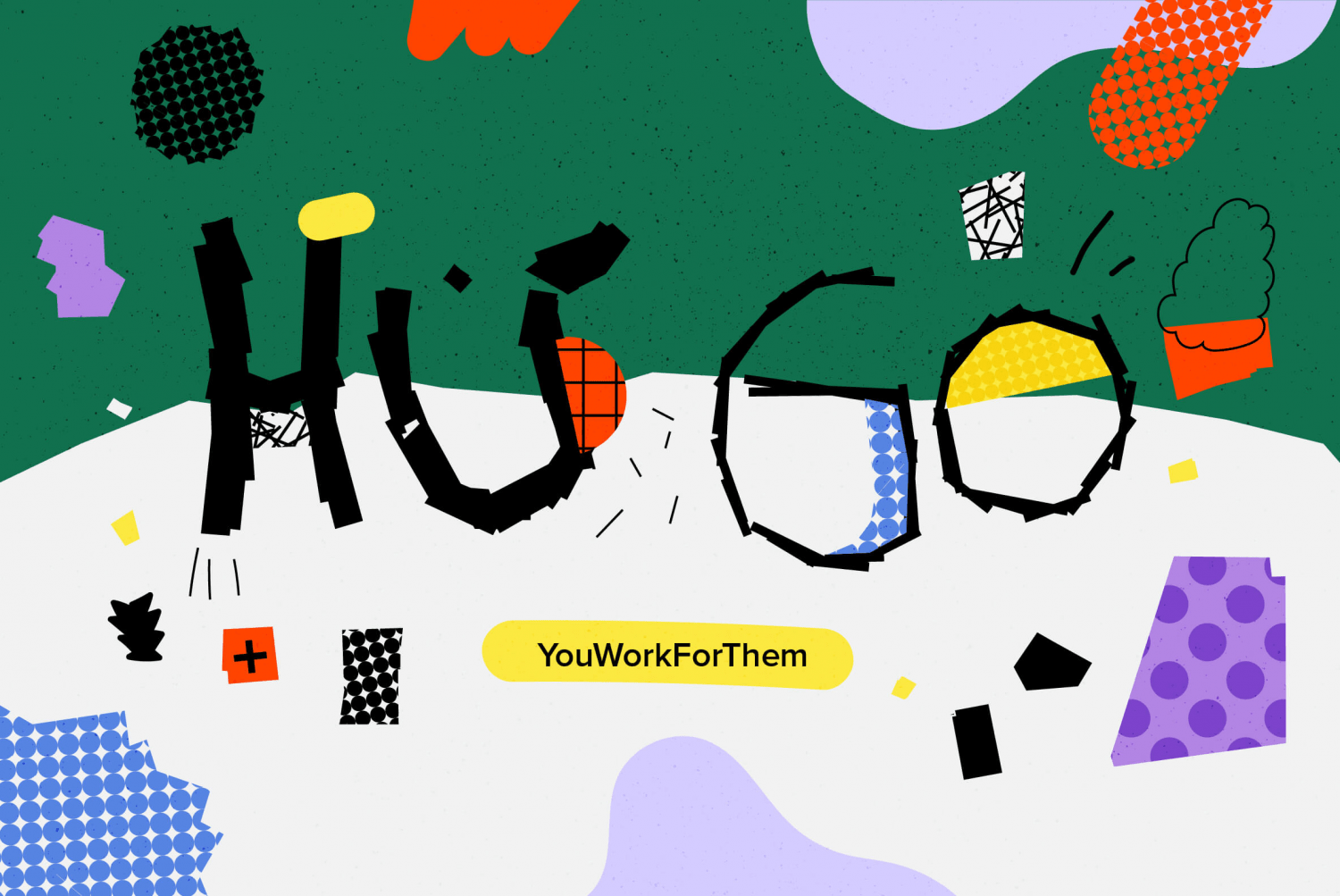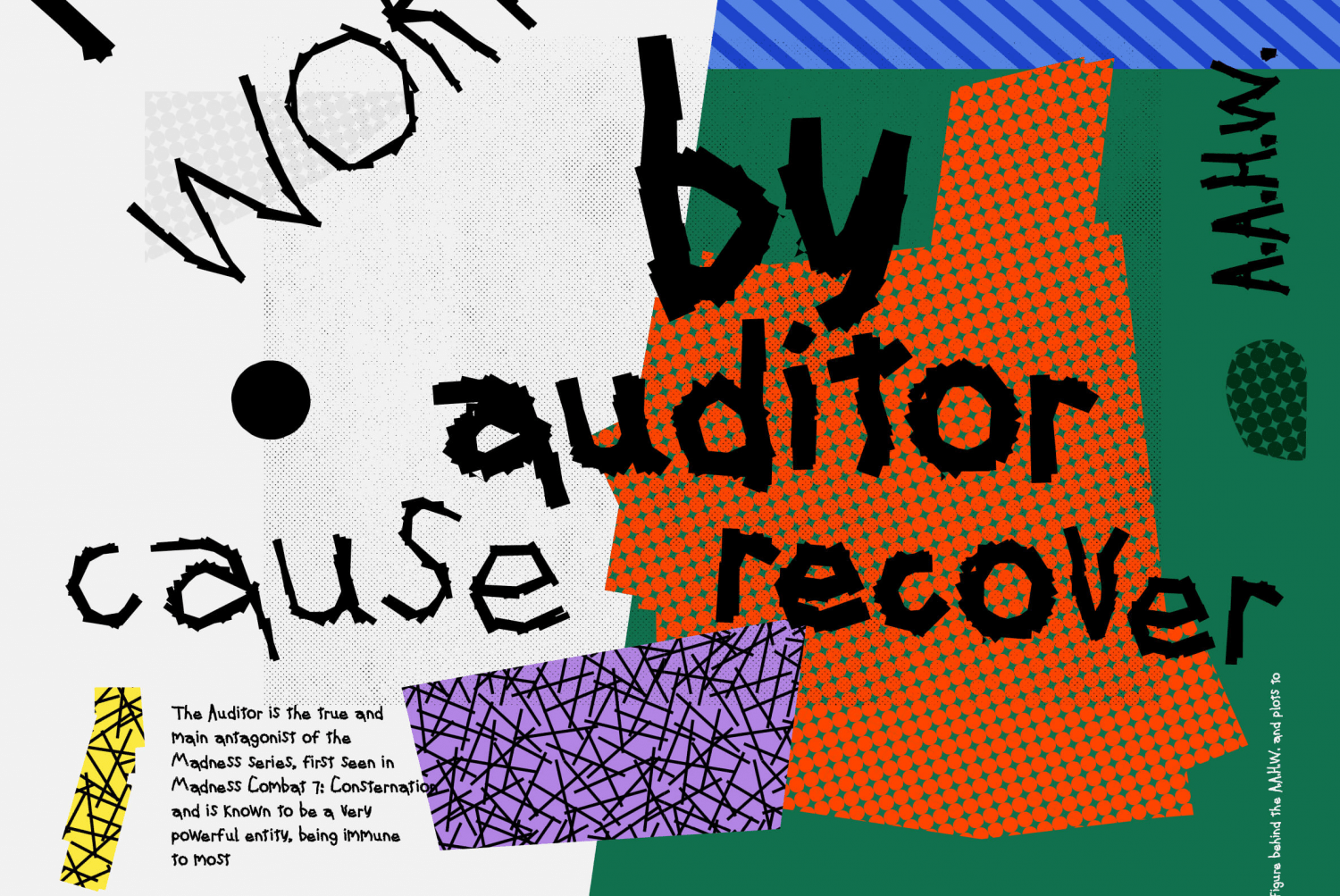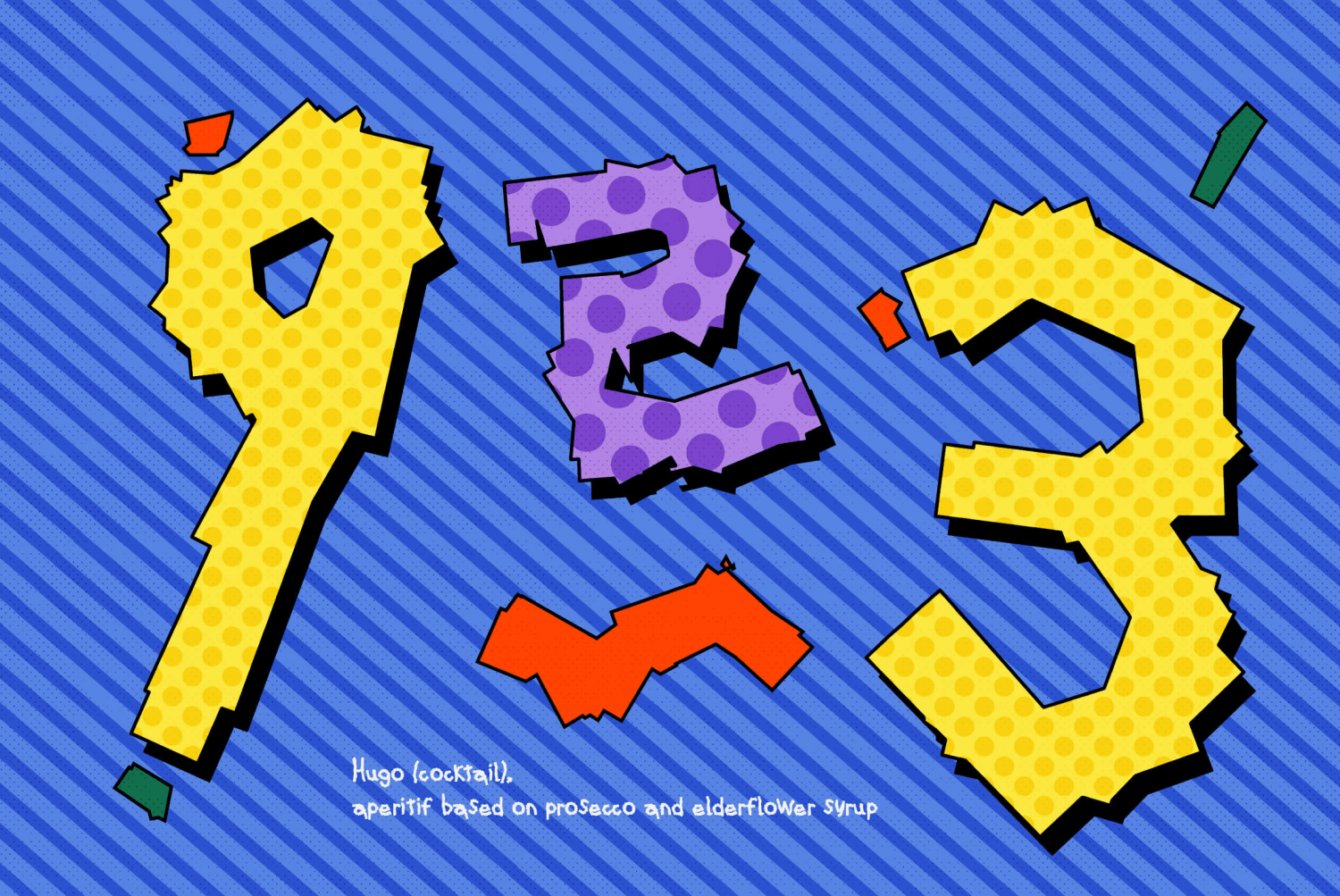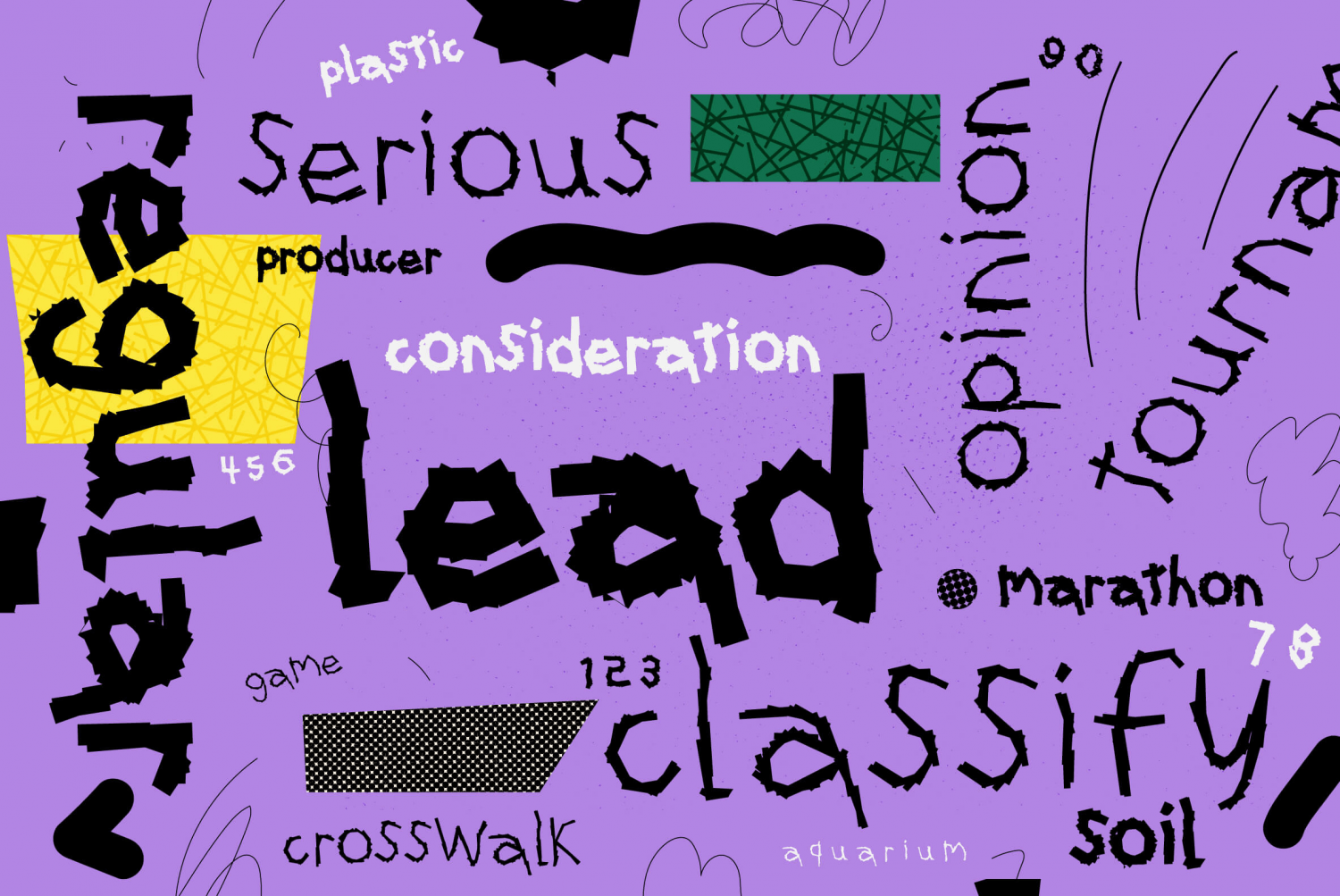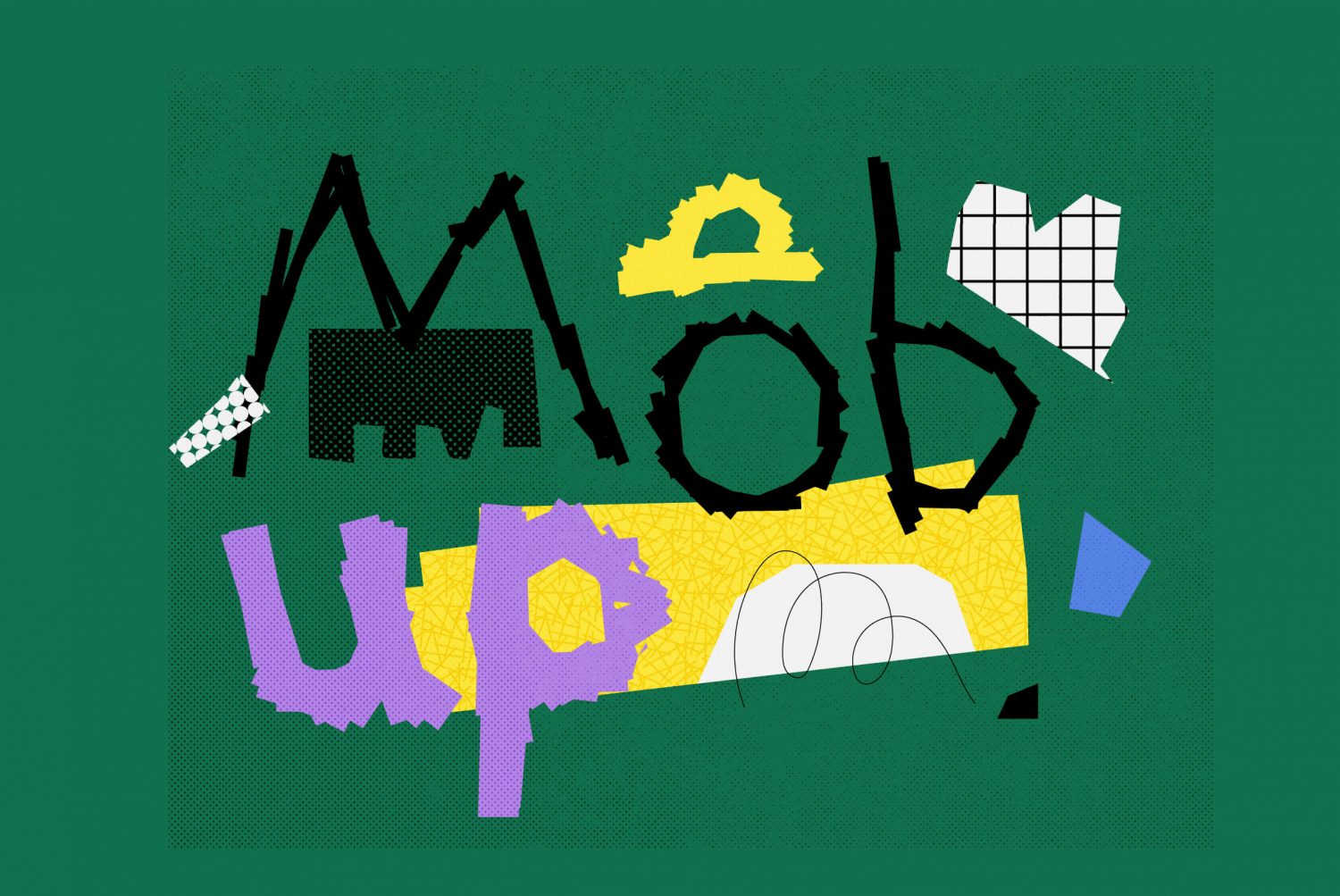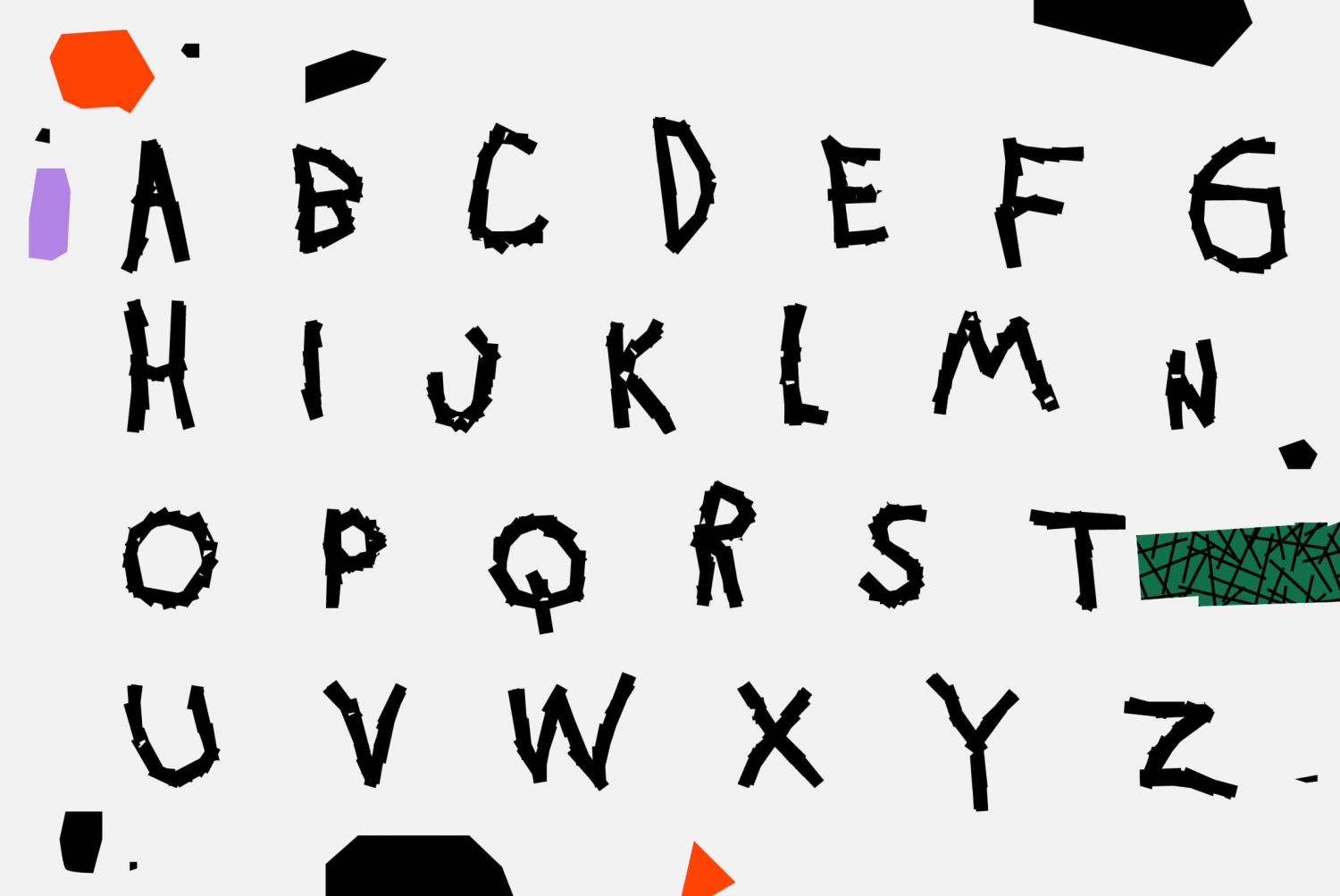
YWFT Hugo
Font Family by YouWorkForThem
YWFT Hugo has a broken, scrawled quality that commands the viewer's attention by making them slightly uneasy: who is responsible for this crazy script, and more importantly, are they a safe distance away? At the same time, YWFT Hugo radiates a childlike innocence and joy, big sloppy blocks haphazardly forming words. That's the power of YWFT Hugo?it can go either way depending on your context. Its urgent simplicity and unique staggered quality make it the perfect choice for poster art, web design, packaging, educational tools, social media, art projects, branding, magazines...wherever you need a sloppy, blocky, abstract print. YWFT Hugo includes OpenType features like alternates, and a larger 500+ glyph set.